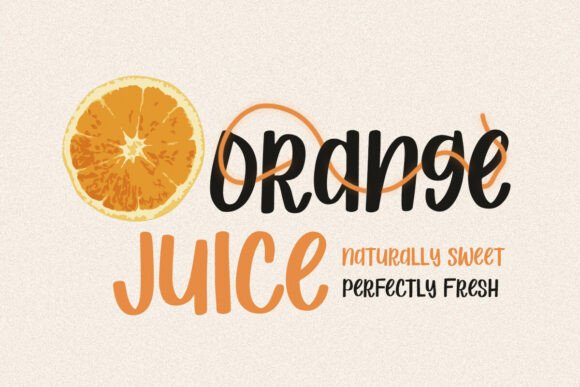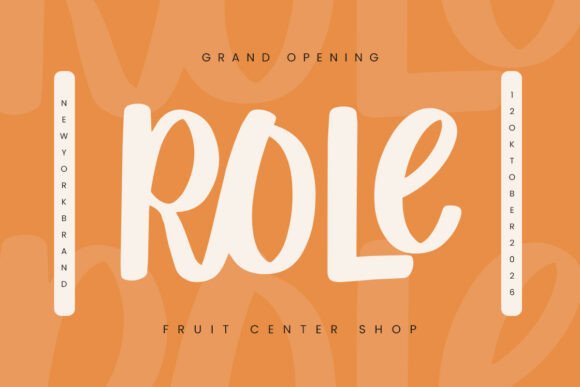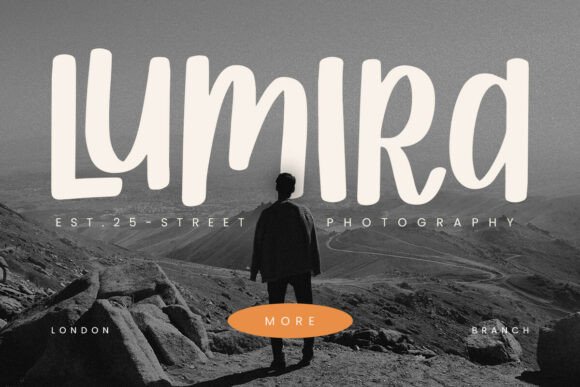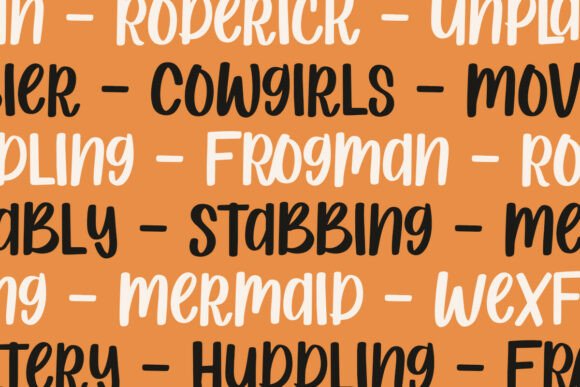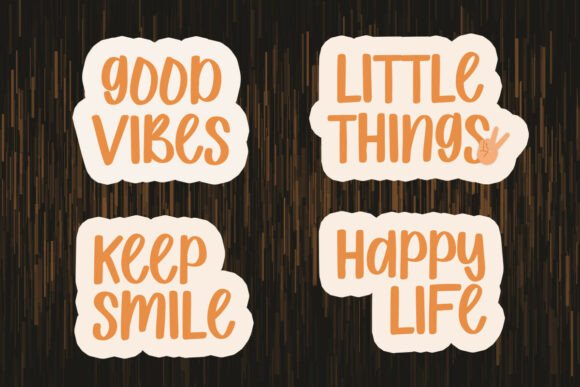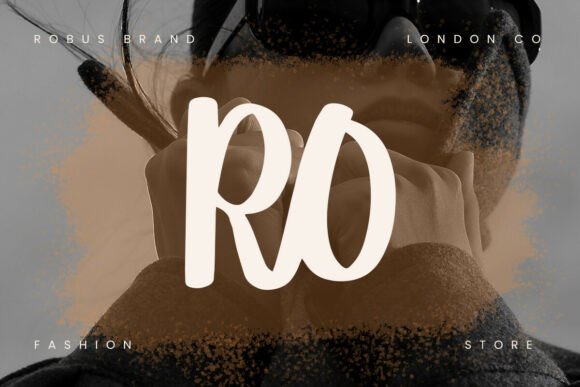
Unleashing Creativity with the Perfect Brush Font
Have you ever stared at a blank page, struggling to find the right words to express your creative vision? It’s a moment we’ve all been in – the blank slate staring back, begging for inspiration. But what if the perfect brush font was just a click away? Welcome to the world of BOBA HAND, a modern brush font that’s as playful as it is soft. With its natural handwriting feel and rounded letterforms, this font is the perfect companion for designers looking to bring a warm and welcoming touch to their projects.
Boba Hand Font is more than just a pretty face – it’s a valuable tool for designers looking to add a modern twist to their visual storytelling. From beverage branding to food packaging, and from social media content to quotes, this font is the perfect addition to any project. With its unique ligatures and PUA encoding, you’ll have access to a world of creative possibilities.
Boba Hand Font Key Features
- Size: The font family includes multiple weights, ranging from Thin to Black, allowing for flexibility in design applications.
- Unique Characteristics: Hand-drawn, cursive script with a playful, whimsical feel, ideal for creating visually appealing and engaging designs.
- Font Pairing: Designed to be paired with a wide range of fonts, including sans-serif and serif fonts, to create visually striking combinations.
Boba Hand Font Review
I’ve had the chance to play around with the Boba Hand Font and here’s my honest review.
- The Boba Hand Font has a unique and playful vibe that’s perfect for cafes, restaurants, or any business with a fun atmosphere.
- The font is highly legible, even at smaller sizes, making it great for signage, menus, or other text-heavy applications.
- The font family includes a variety of weights and styles, giving designers plenty of options to choose from.
- The font may not be suitable for formal or professional applications, as it’s quite casual and playful.
- The font’s aesthetic may be too “trendy” or “novelty” for some brands, potentially limiting its long-term appeal.
- The font family could benefit from additional languages and character sets to make it more versatile.
Overall, I think the Boba Hand Font is a great choice for businesses looking to add some personality to their branding. While it may have some limitations, its unique style and high legibility make it a solid option for designers.
For the best results, use the Boba Hand Font for casual, handwritten text such as titles, headings, and body text. It’s also great for creating a personal and creative brand identity. Experiment with different font sizes, colors, and styles to add visual interest to your designs.
Alternatives to Boba Hand Font
Lato is a clean and modern sans-serif font, perfect for use in digital products, websites, and mobile applications. It’s highly legible and works well in a variety of contexts, from headings to body text. Compared to Boba Hand Font, Lato has a more geometric feel and is better suited for digital use.
Montserrat is a sans-serif font with a strong urban feel, ideal for use in logos, headlines, and titles. It’s highly customizable and works well in a variety of contexts, from digital products to print materials. Compared to Boba Hand Font, Montserrat has a more geometric feel and is better suited for use in bold, eye-catching typography.
Open Sans is a clean and modern sans-serif font, perfect for use in digital products, websites, and mobile applications. It’s highly legible and works well in a variety of contexts, from headings to body text. Compared to Boba Hand Font, Open Sans has a more neutral feel and is better suited for use in a wide range of digital applications.